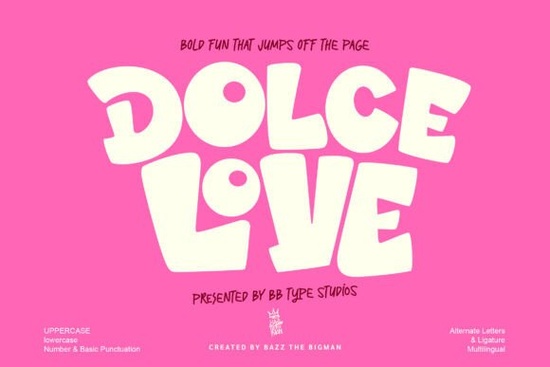
If you're looking for a display font that brings warmth, whimsy, and just the right amount of bold charm to your creative projects, Dolce Love Font might be exactly what you need. With its rounded curves, chunky letterforms, and playful personality, it’s designed to stand out whether you’re designing Valentine’s cards, kids’ party invitations, or branding for a sweet treat business.
Dolce Love isn’t just cute it’s confident. The generous weight and soft bends give it a friendly feel without sacrificing presence. That makes it especially useful for headlines, social media graphics, or any design where you want your message to pop while still feeling approachable.
What kinds of projects work best with Dolce Love?
This font shines in contexts that call for joy, affection, or lighthearted energy. Think:
- Valentine’s Day printables and digital cards
- Birthday invitations for kids (or kids at heart)
- Sticker designs and planner embellishments
- Packaging for cookies, cupcakes, or handmade soaps
- Social media quotes and seasonal promotions
- Branding for boutique bakeries or craft businesses
Because of its strong visual character, Dolce Love works best when used sparingly as a headline or accent font rather than body text. Pair it with a clean, simple sans-serif for balance, and you’ll get contrast that feels intentional, not chaotic.
How does it compare to other playful display fonts?
If you enjoy fonts with personality but want something distinct from the usual script or hand-lettered styles, Dolce Love offers a fresh alternative. It shares that cheerful vibe with fonts like Picky Rabbit, which leans into quirky animal-inspired shapes, or North West, a bolder, retro-leaning option with sharp angles. For a funkier twist, Retro Funky brings 70s flair, while Rustpress adds vintage texture. And if you’re drawn to collegiate aesthetics, Varsity Reborn delivers classic athletic energy.
What sets Dolce Love apart is its blend of sweetness and strength. It doesn’t whisper it beams. Yet it avoids being overly cutesy by maintaining consistent structure and spacing, which helps it stay legible even at larger sizes.
Tips for using Dolce Love effectively
To get the most out of this font, keep these practical ideas in mind:
- Avoid tight spacing: The rounded terminals and thick strokes mean letters can visually merge if tracked too closely. Give them room to breathe.
- Use color thoughtfully: Soft pinks, warm reds, or creamy pastels enhance its sweet personality, but don’t shy away from bold contrasts navy or forest green can ground its playfulness for more mature audiences.
- Limit uppercase use: While all-caps looks punchy, the lowercase forms often carry more charm thanks to their subtle quirks and open counters.
- Test print output: If you’re using it for physical products (like stickers or packaging), always do a test print. Thick fonts can sometimes fill in on low-resolution printers.
Is Dolce Love right for your next project?
If your design needs a font that feels joyful without being juvenile, expressive without being messy, and bold without being harsh, Dolce Love hits that sweet spot. It’s especially well-suited for seasonal campaigns, gift tags, nursery decor, or any product where emotion and personality matter as much as clarity.
And because Creative Fabrica frequently bundles fonts like this with graphics, templates, and SVG files, you might find ready-made kits that already pair Dolce Love with complementary elements saving you time while keeping your aesthetic cohesive.
Before you download, ask yourself:
- Does my project call for warmth and friendliness over minimalism or formality?
- Will this font be used primarily for short headlines or decorative text?
- Do I have a clean secondary font ready to pair with it?
- Am I creating something for kids, lovers, foodies, or craft enthusiasts?
If you answered “yes” to most of these, Dolce Love could be your new go-to. Try it in a mockup first you might be surprised how quickly it transforms a simple layout into something full of heart.